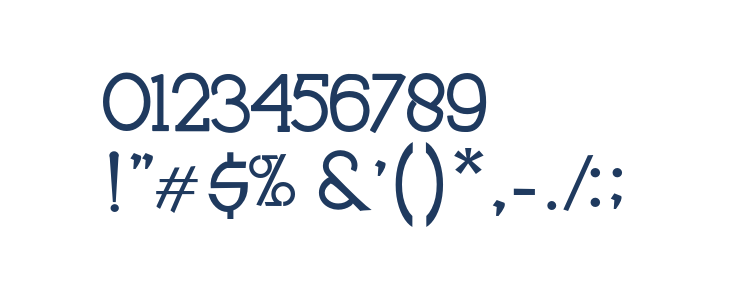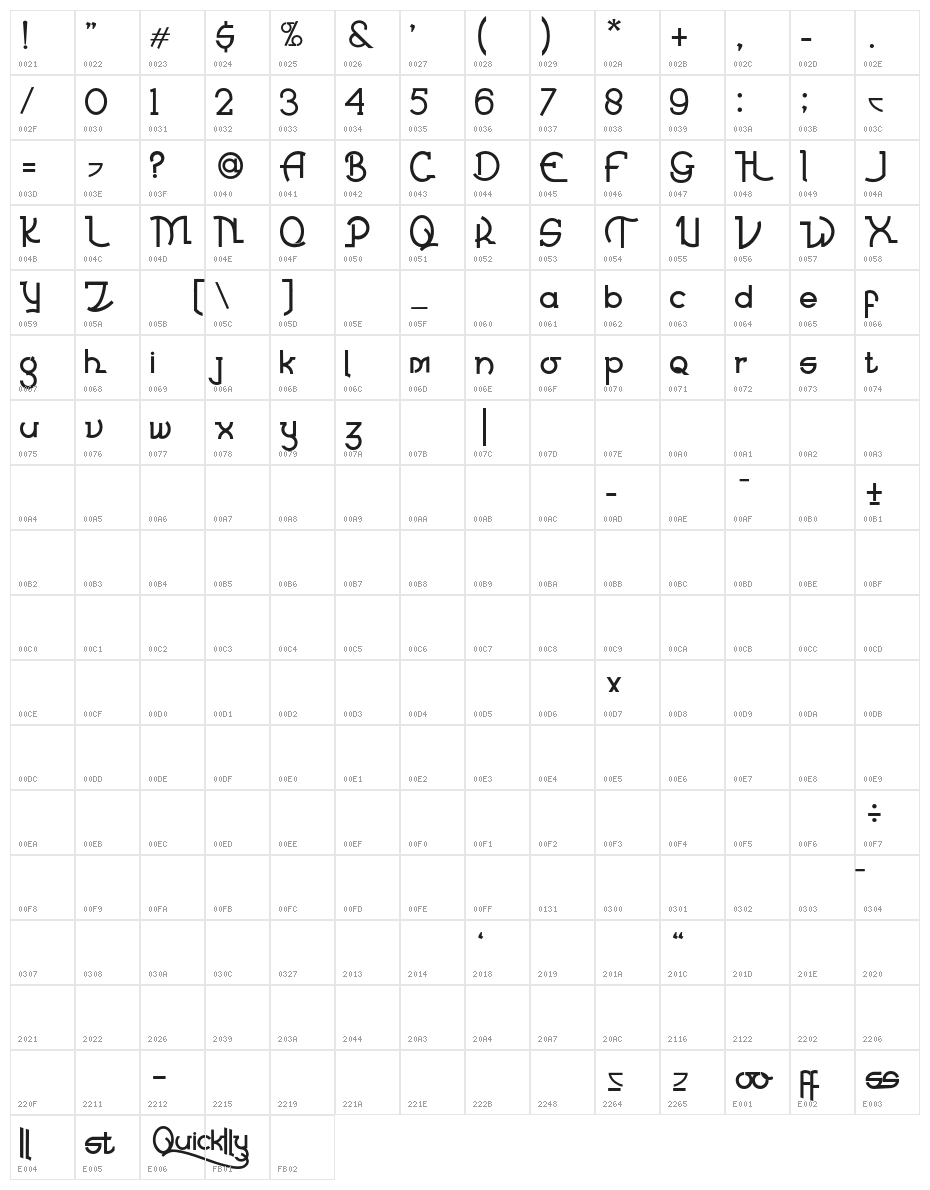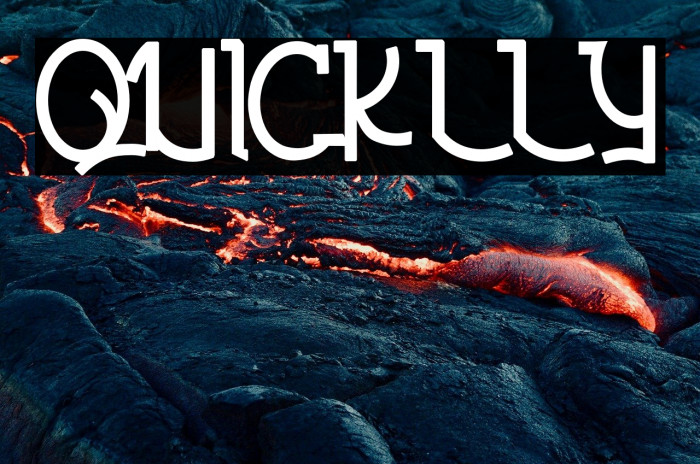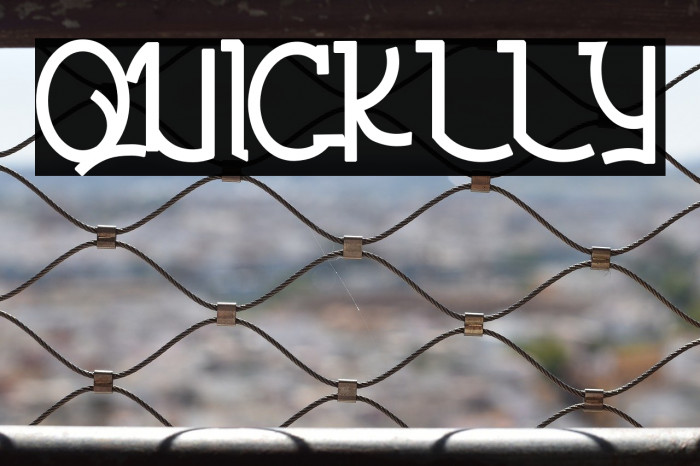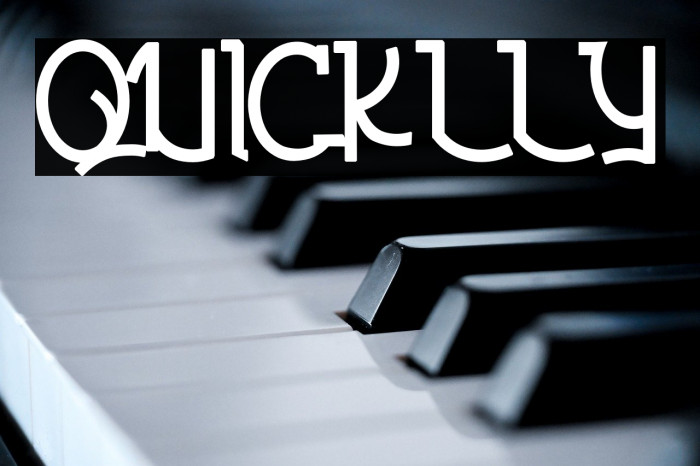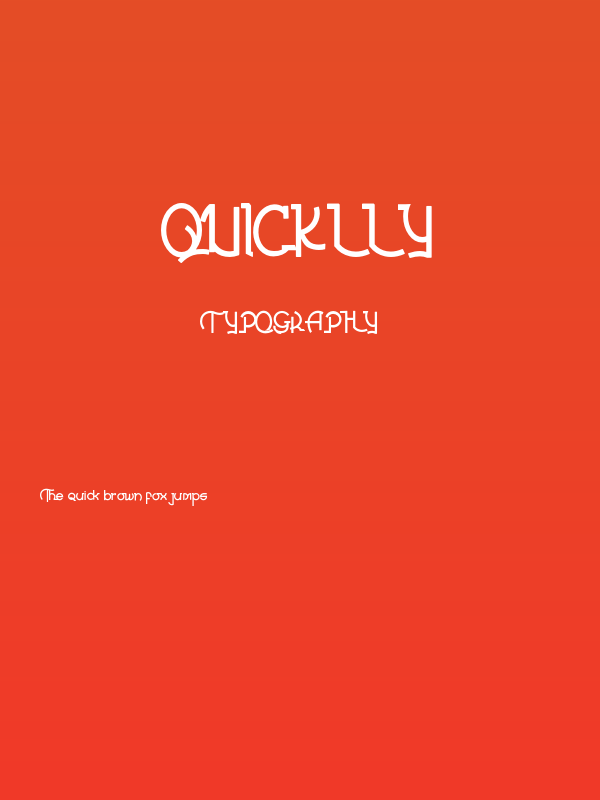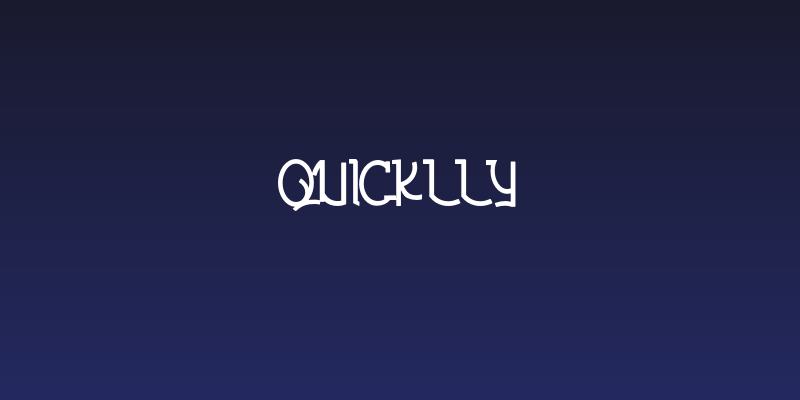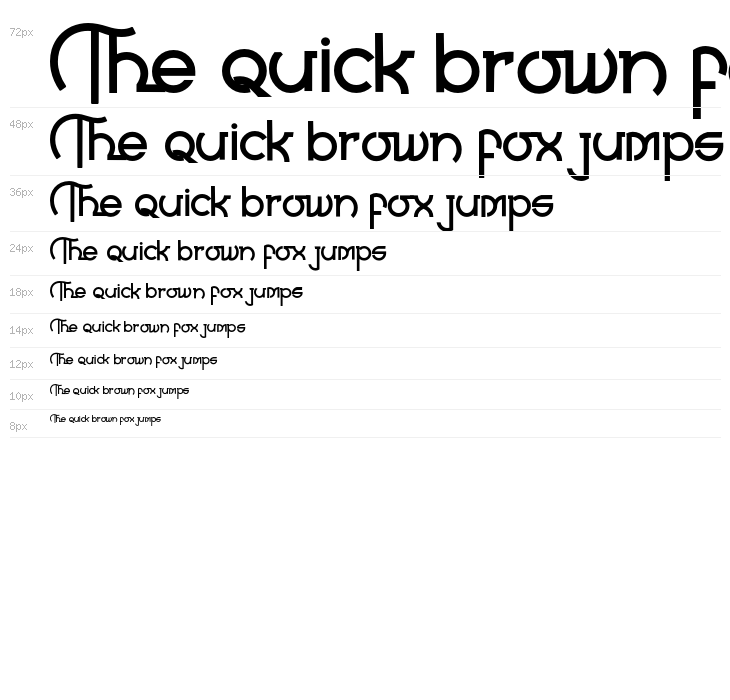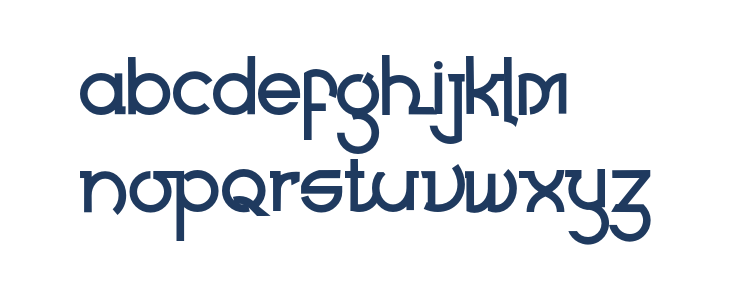
QUICKLLY Font
QUICKLLY Description
This font features a unique and modern design with a geometric and artistic flair. The uppercase letters are characterized by their bold, structured forms with distinct curves and angles, giving them a futuristic appearance. The lowercase letters maintain a similar style, offering a cohesive look across the alphabet. Numbers are bold and clear, ensuring readability while maintaining the font's distinctive style. Special characters are crafted with the same attention to detail, making them suitable for various design contexts. The overall aesthetic is both decorative and functional, making it a versatile choice for creative projects.